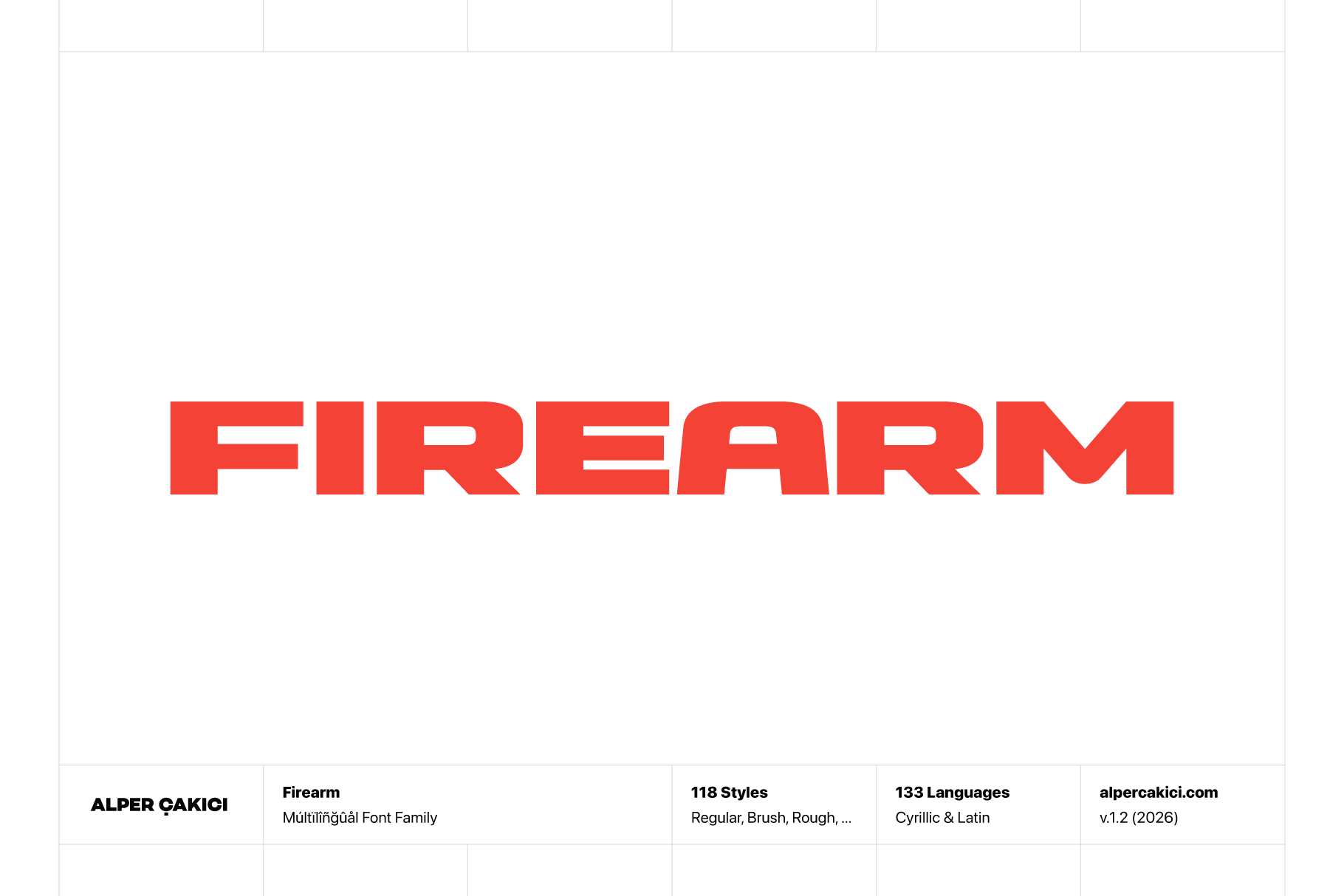
Firearm Cyrillic Heavy Typeface
Firearm is a bold, high-impact sans serif typeface with a solid, monolithic presence. Built on wide proportions and heavy strokes, it delivers a strong, confident tone that stands out in any display setting. Its clean yet forceful construction avoids decorative breaks or stencil traits, focusing instead on pure geometric weight and visual authority.
The design leans into a modern, industrial aesthetic with subtle sci-fi and tech influences. Sharp corners, tight spacing, and dense forms create a compact rhythm that feels both contemporary and assertive. Despite its heaviness, Firearm remains highly legible, making it suitable for large headlines, branding, posters, and digital interfaces.
With an extensive family of 118 styles, Firearm offers exceptional versatility. From clean and regular cuts to textured variations like aged, grainy, rough, and sketchy, the typeface adapts to both polished and expressive design needs. Rounded and circular styles introduce softer alternatives, while distressed versions add depth and character without compromising the core structure.
Supporting both Latin and Cyrillic scripts, Firearm is designed for broad usability across global projects. Whether used in branding, gaming visuals, editorial layouts, or bold typographic compositions, Firearm provides a powerful and modern voice.